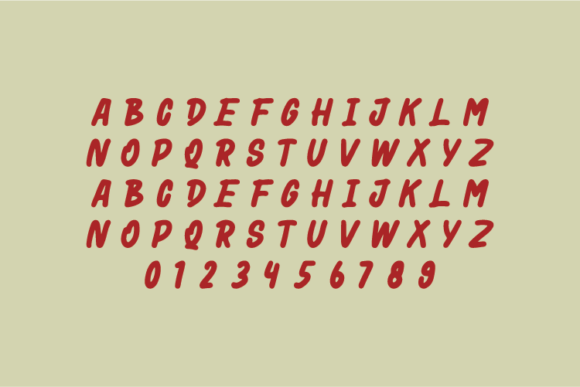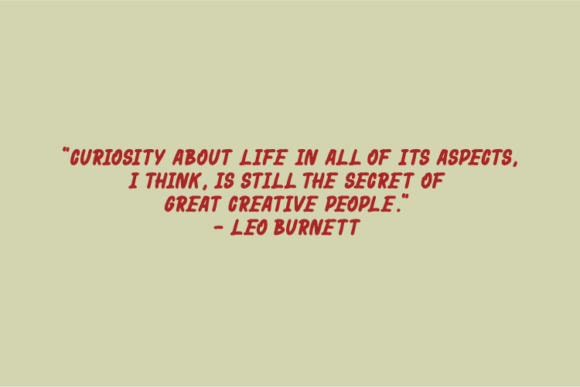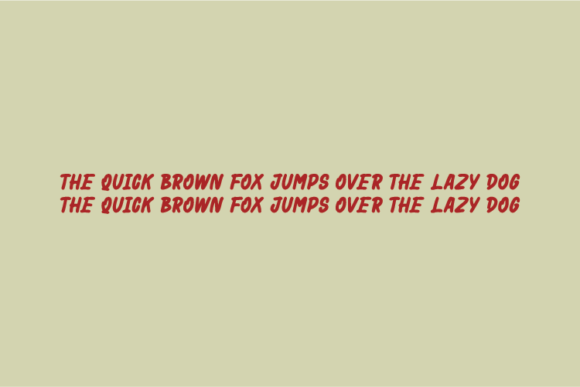
Cassata Font: The Unique and Natural Display Font for Creative Designs
In the world of typography, fonts play a crucial role in conveying the tone and personality of a design. For designers and crafters, finding the perfect font can make all the difference in creating visually appealing and effective designs. If you’re on the hunt for a font that stands out from the rest, look no further than Cassata Font. In this article, we’ll dive into the unique features of Cassata Font and explore its uses in various design applications.
What is Cassata Font?
Cassata Font is a natural display font that has gained popularity among designers and crafters due to its distinctive and unique characteristics. What sets Cassata apart from other fonts is that it was created without changing a single node in each character’s indentation. This means that the font’s design is based on the natural curves and shapes of the characters, resulting in a truly organic and authentic look.
The Unique Features of Cassata Font
The unique feature of Cassata Font is its natural and unaltered design. The font’s creator has carefully crafted each character to maintain its original shape and indentation, giving the font a distinctive and hand-crafted feel. This approach has several benefits, including:
- Uniqueness: Cassata Font’s natural design makes it stand out from other fonts, which are often created with a more uniform and standardized approach.
- Legibility: The font’s clear and authentic design ensures that it remains legible, even at larger sizes.
- Expressiveness: Cassata Font’s unique character shapes and indentations give it a high level of expressiveness, making it perfect for designs that require a personal touch.
Uses of Cassata Font
Cassata Font is a versatile font that can be used in a variety of design applications. Here are some ideas to get you started:
- Quotes and Typography: Cassata Font’s unique design makes it perfect for quotes, typographic posters, and other text-based designs.
- T-Shirts and Apparel: The font’s bold and expressive design makes it ideal for t-shirt designs, labels, and other apparel.
- Notes and Stationery: Cassata Font’s natural and authentic design makes it suitable for notes, stationery, and other paper-based designs.
- Product Design: The font’s unique character shapes and indentations make it perfect for product design, packaging, and branding.
Tips for Using Cassata Font
To get the most out of Cassata Font, here are some tips to keep in mind:
- Use it as a display font: Cassata Font is designed to be used as a display font, so use it to add emphasis and personality to your designs.
- Experiment with sizes and colors: The font’s unique design makes it suitable for use at various sizes and colors, so don’t be afraid to experiment and find the perfect combination for your design.
- Pair it with other fonts: Cassata Font can be paired with other fonts to create a unique and visually appealing design.
Cassata Font is a unique and natural display font that offers a fresh perspective on typography. Its distinctive design, based on the natural curves and shapes of the characters, makes it perfect for designers and crafters looking to add a personal touch to their designs. With its versatility and expressiveness, Cassata Font is sure to become a go-to font for a variety of design applications. Whether you’re designing quotes, t-shirts, notes, or product designs, Cassata Font is an excellent choice.